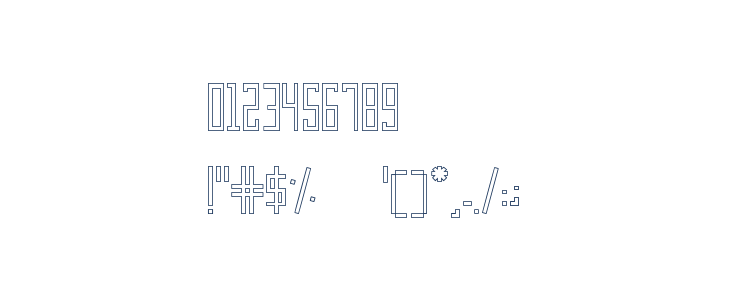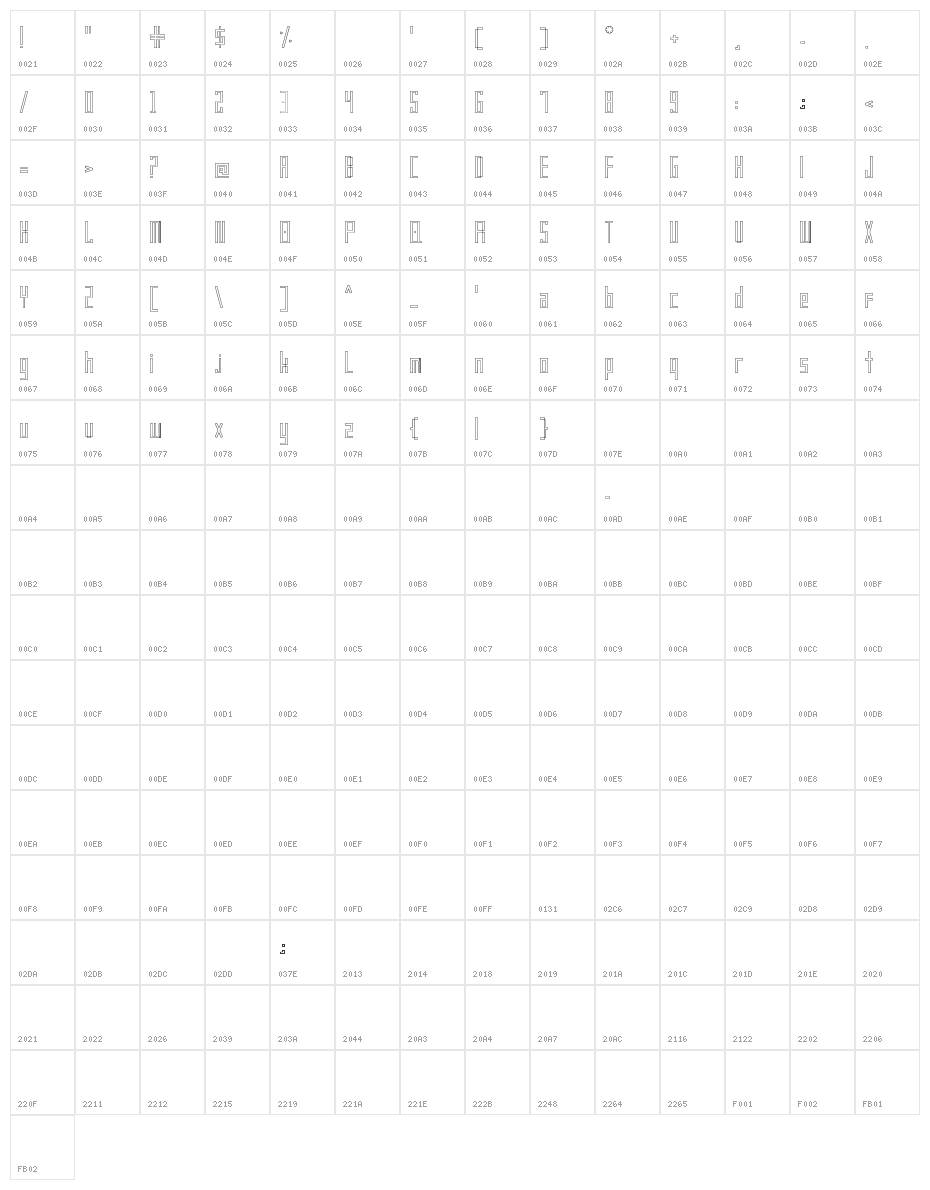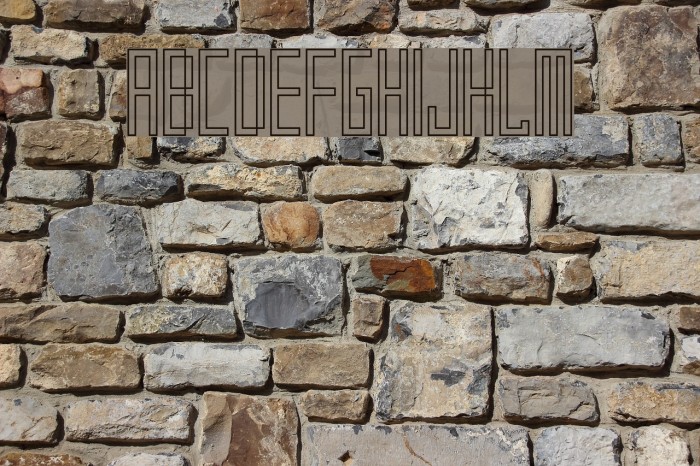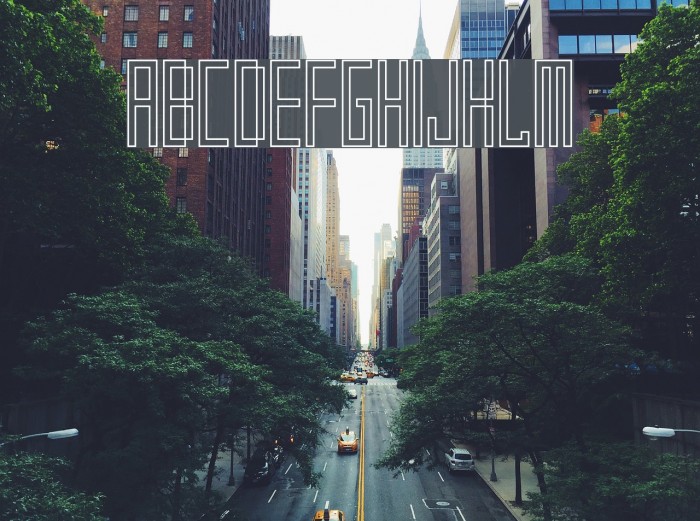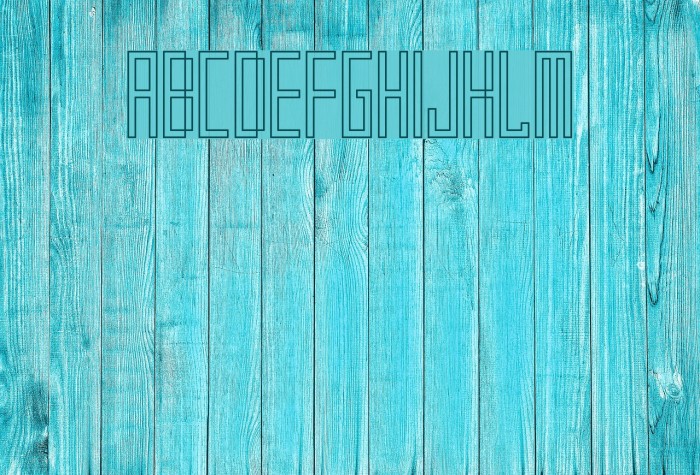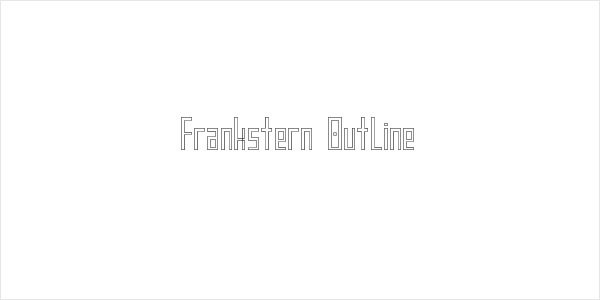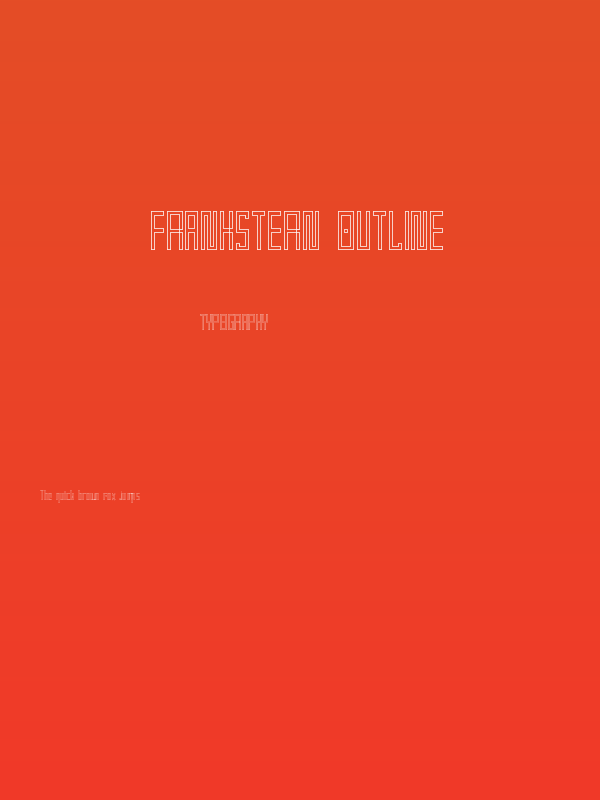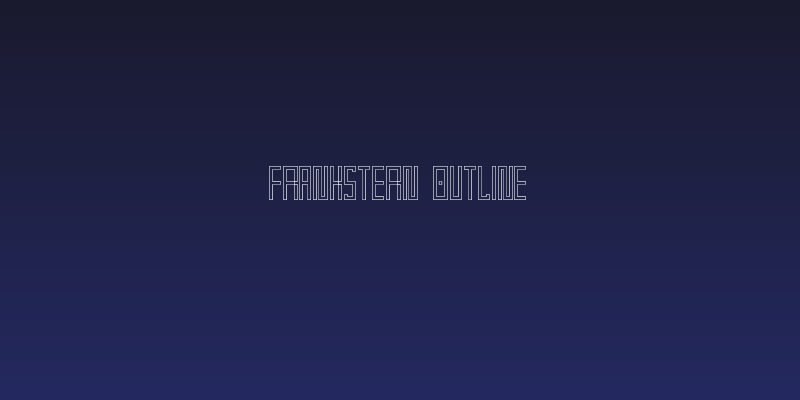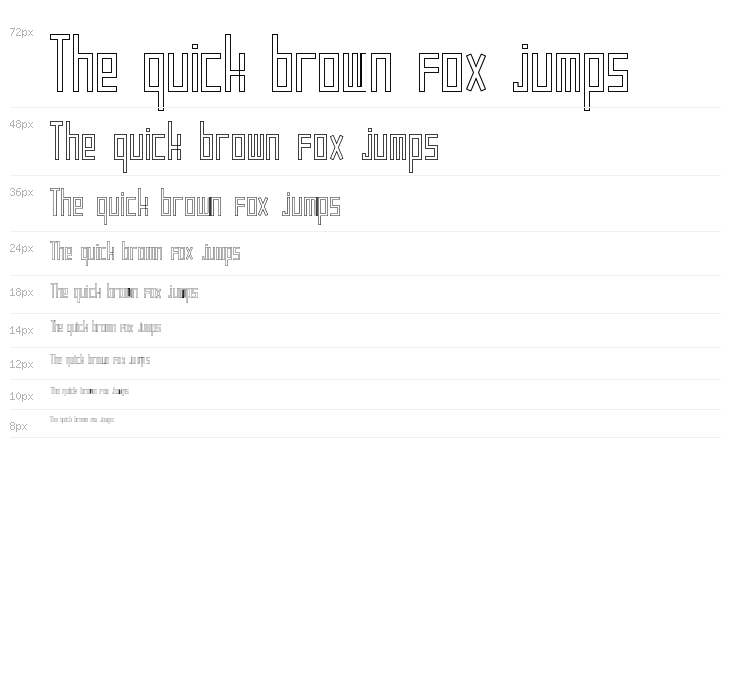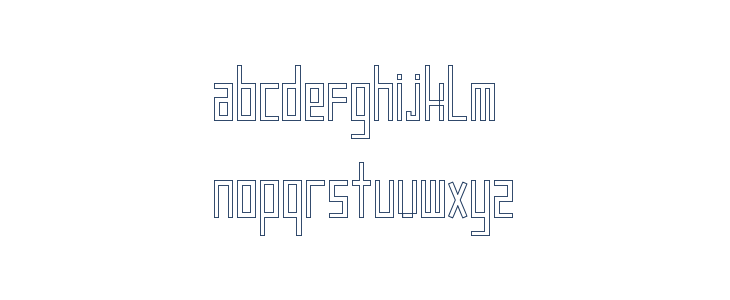
Frankstern Outline Font
Frankstern Outline Description
This font features a distinct outline style with geometric and angular shapes. The characters are constructed with a consistent line weight, creating a modern and technical appearance. Each letter is formed with sharp corners and straight lines, giving it a structured and precise look. The uppercase and lowercase letters maintain a uniform height, while the numerals and special characters follow the same design principles, ensuring a cohesive visual identity. The font's outline nature makes it suitable for overlaying on images or backgrounds, allowing the underlying elements to show through the hollow spaces.
| Proposed Projects | Ideal for modern branding, tech-related projects, posters, and digital media where a futuristic or technical aesthetic is desired. |